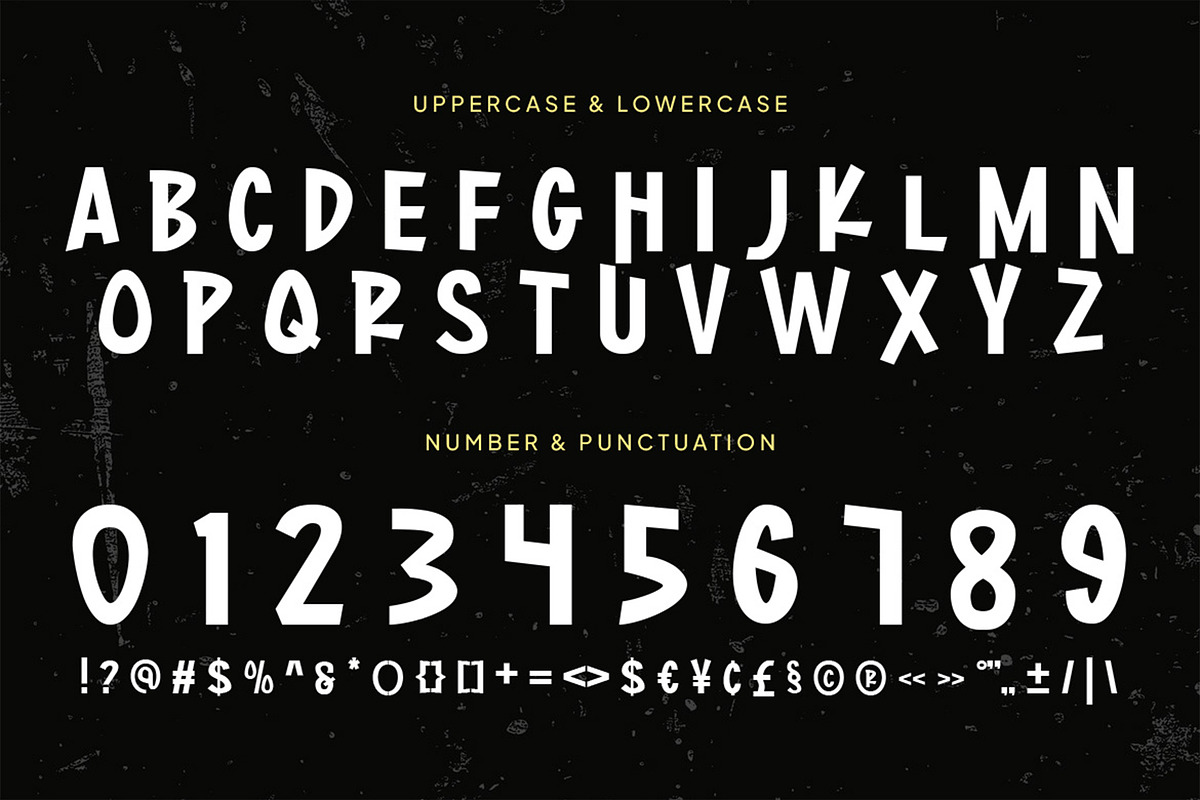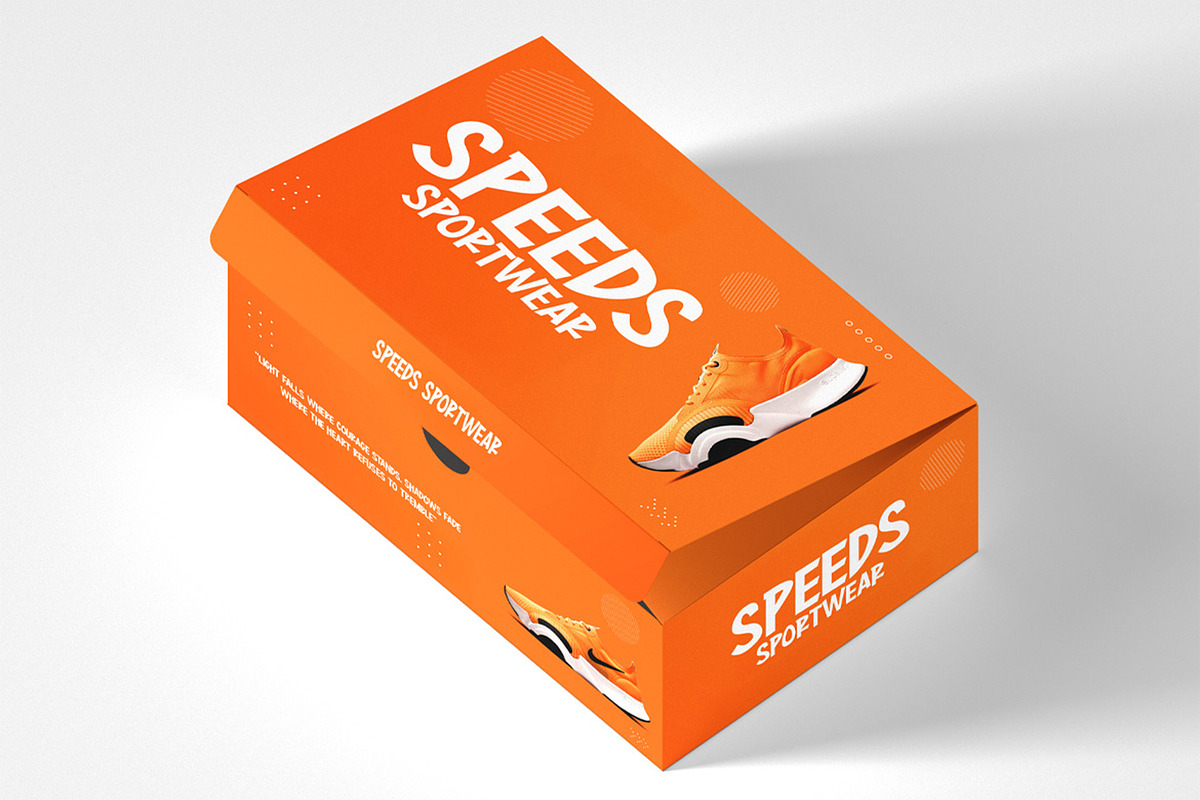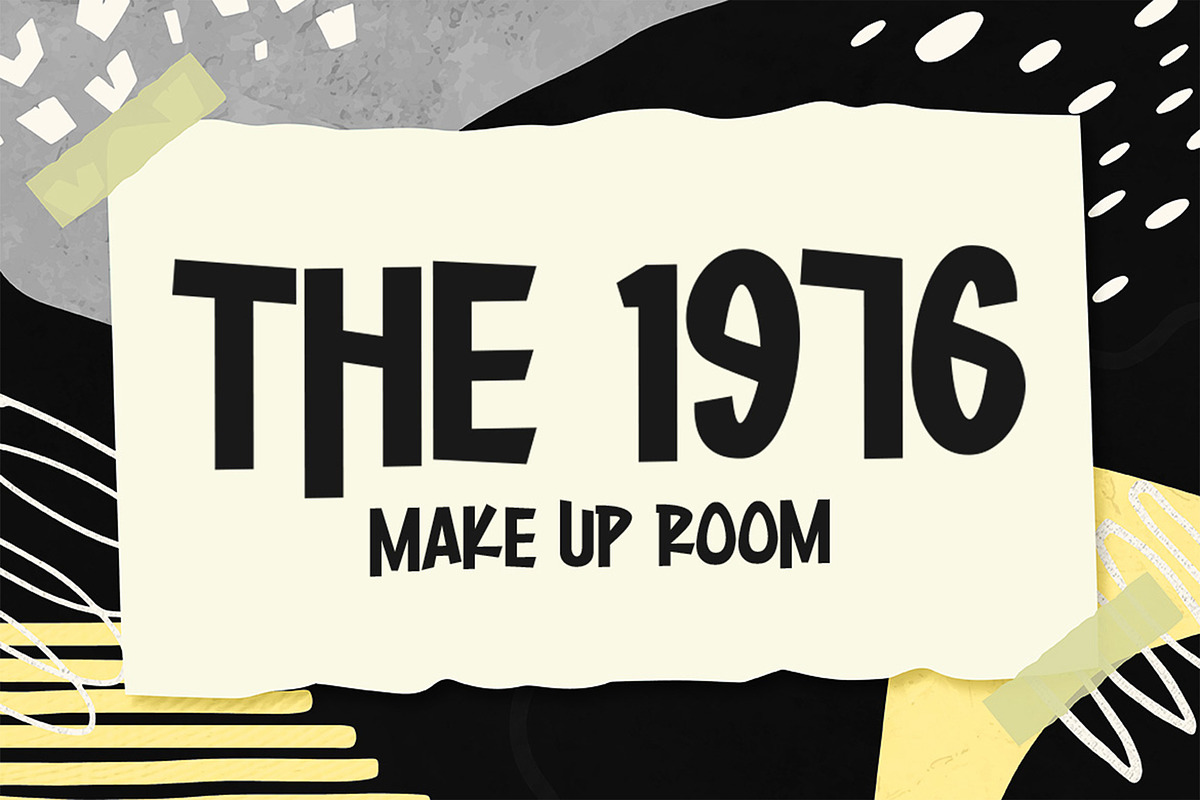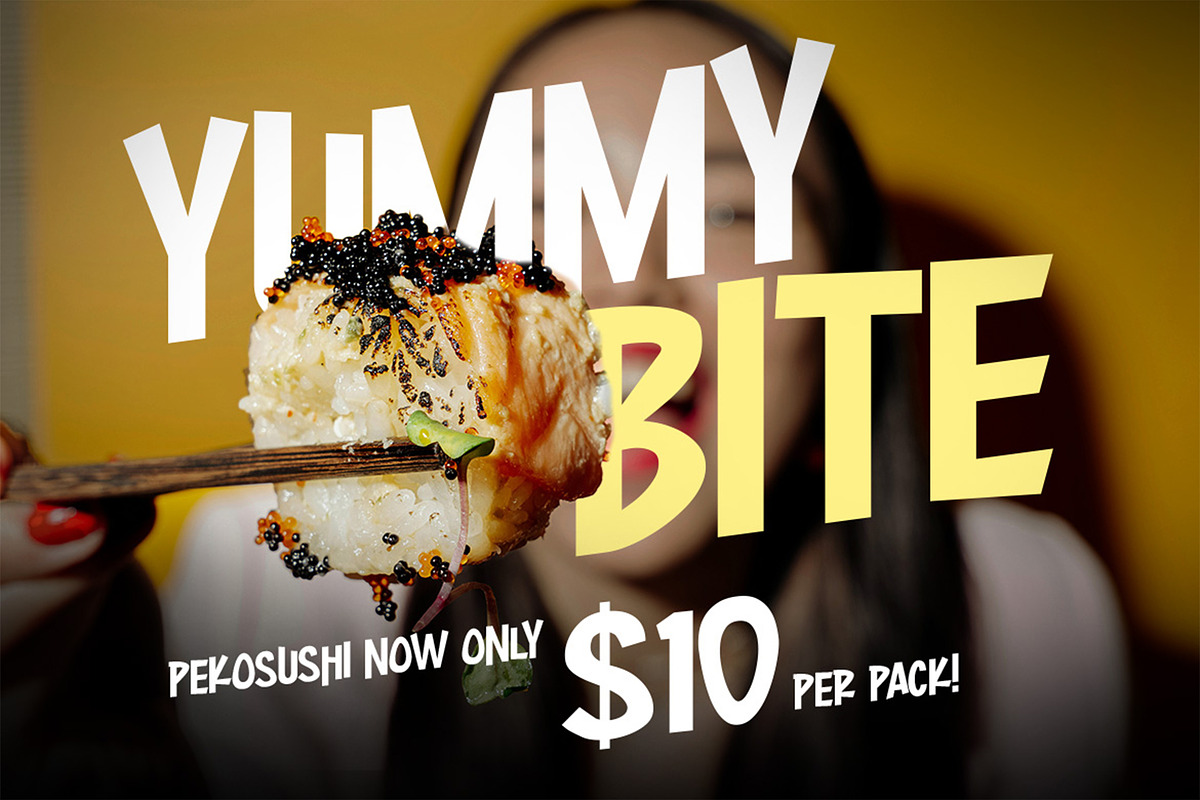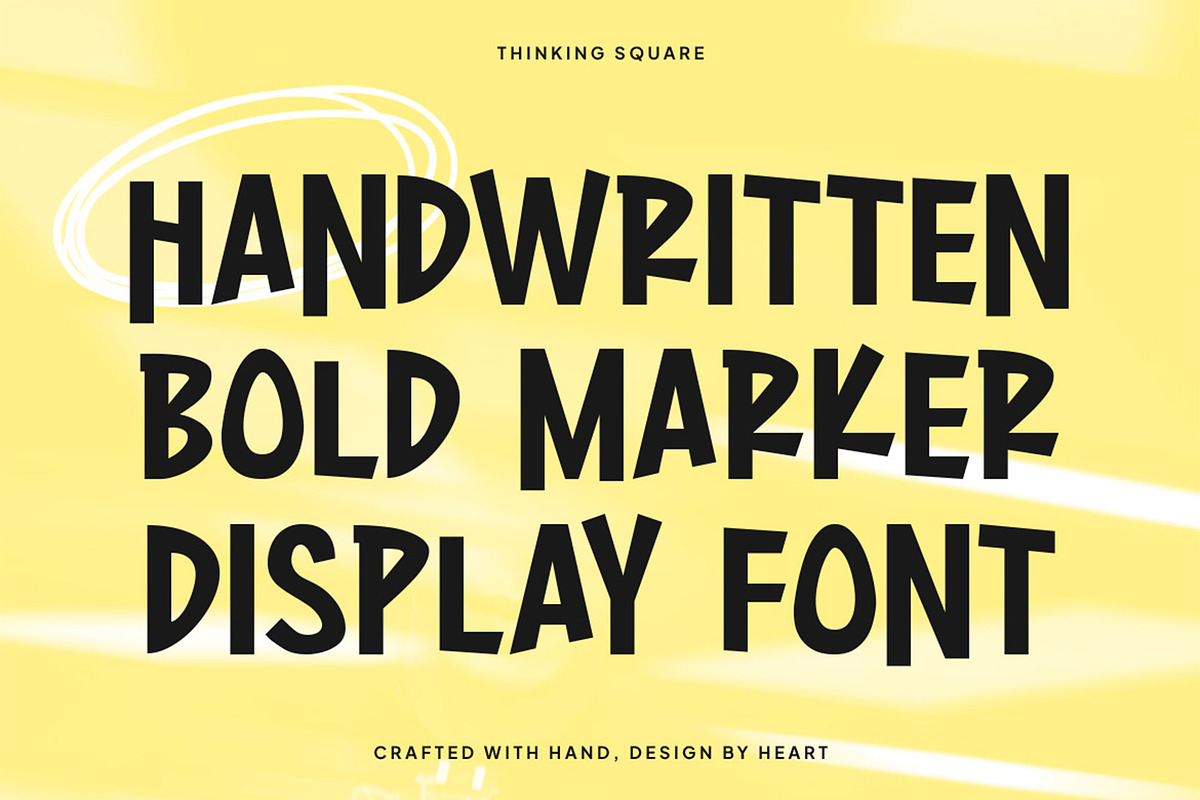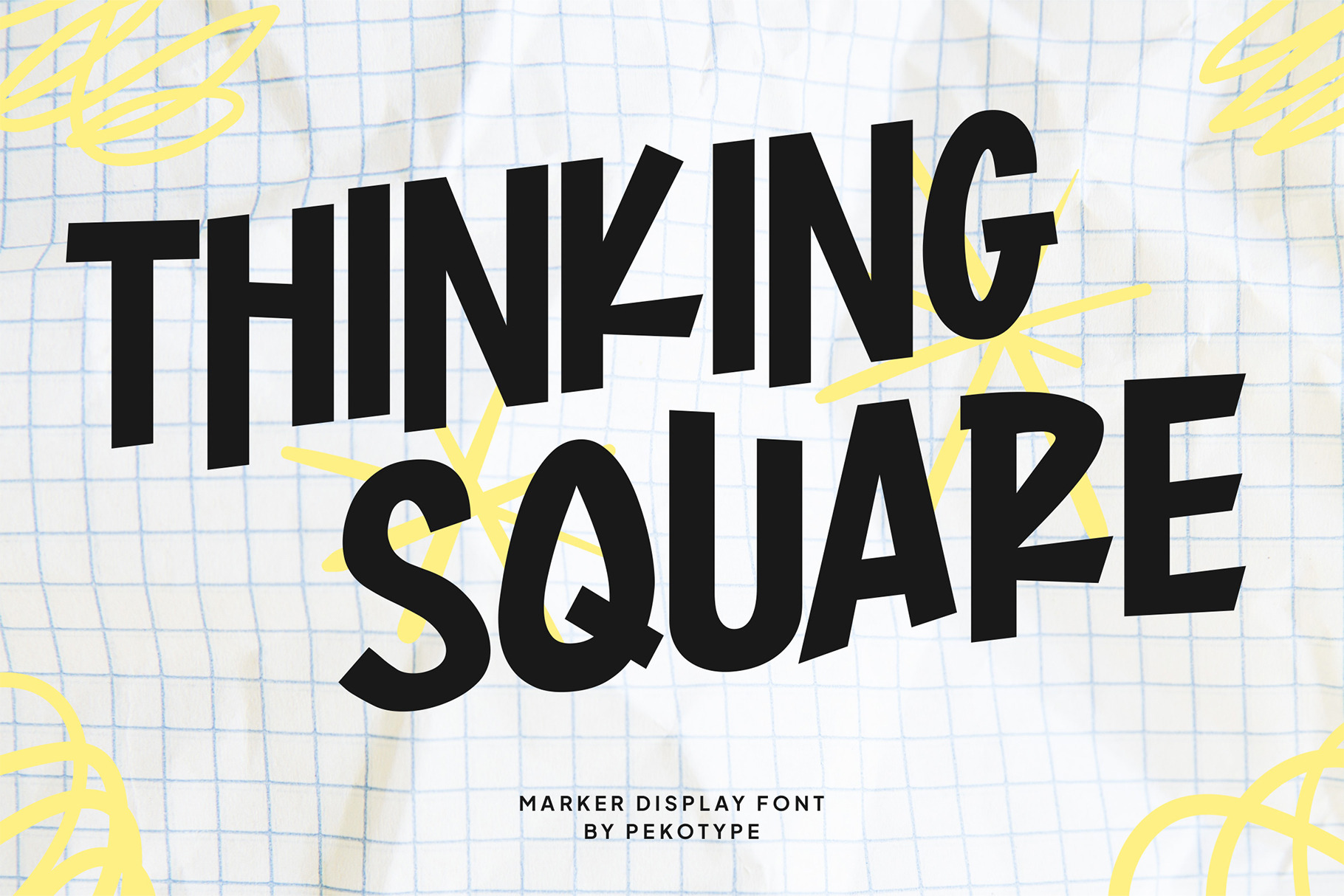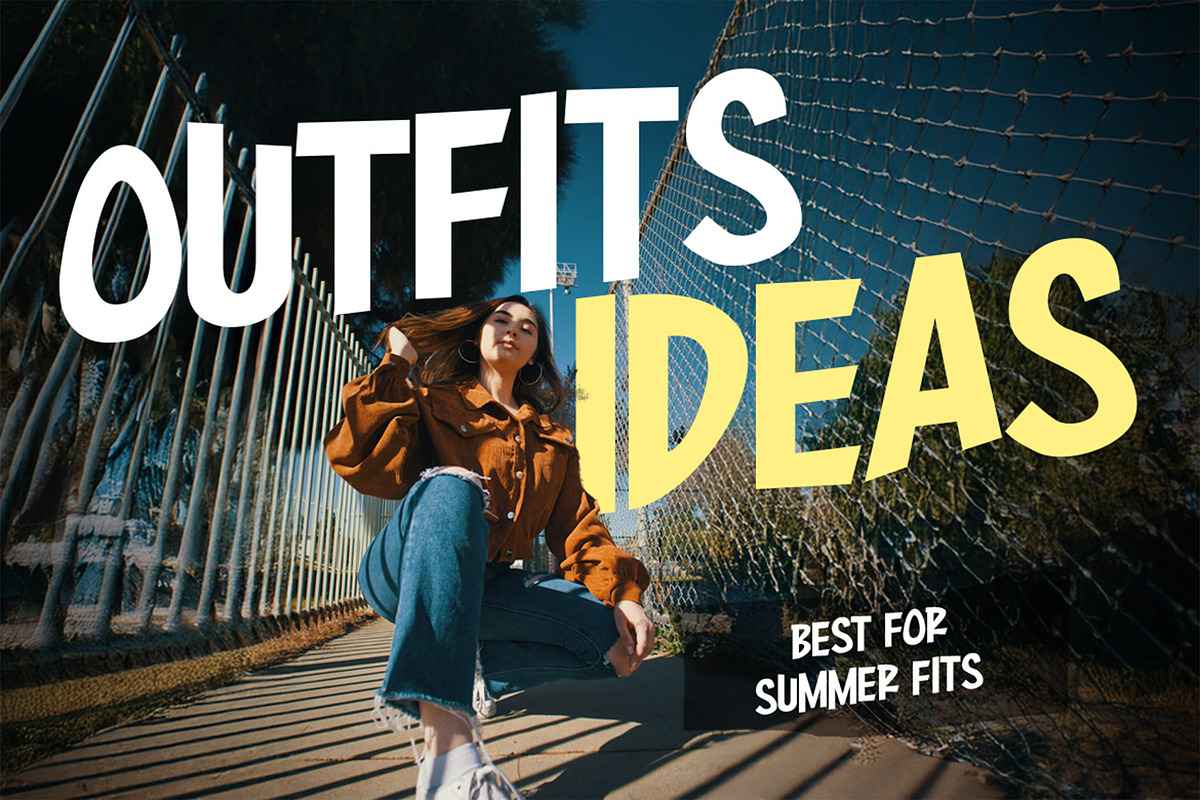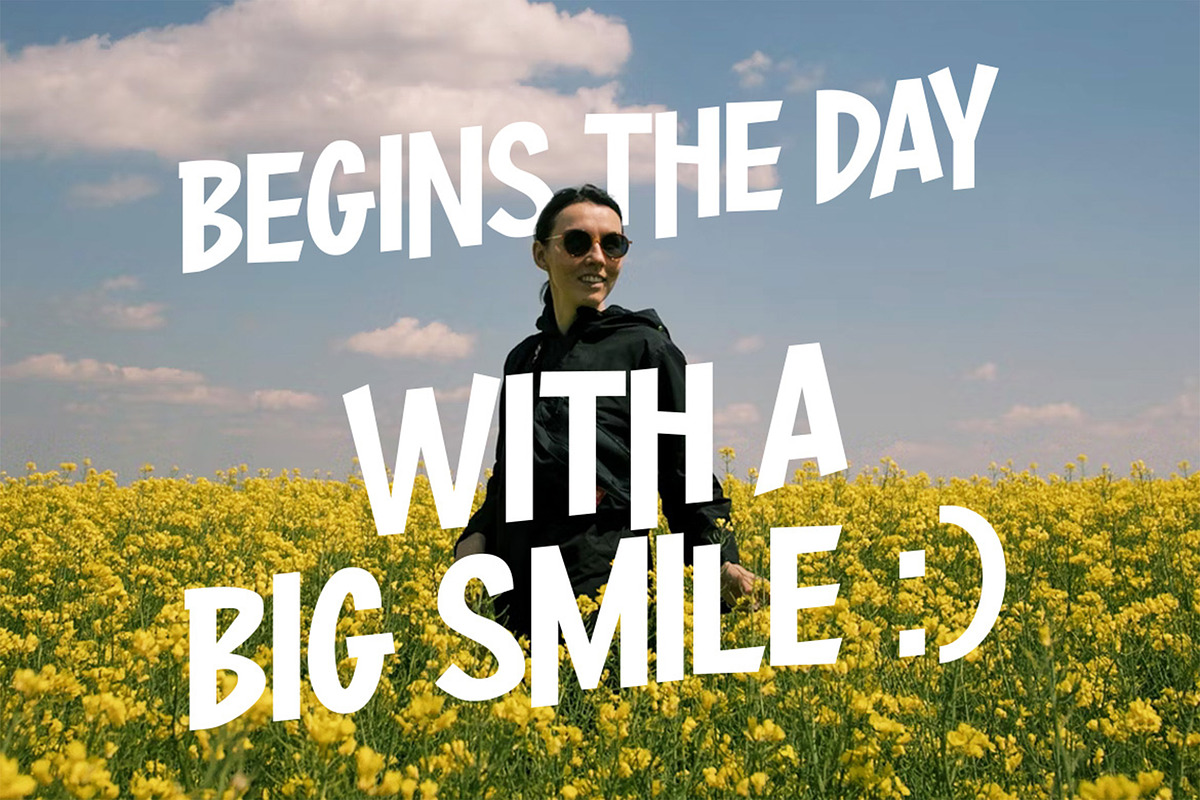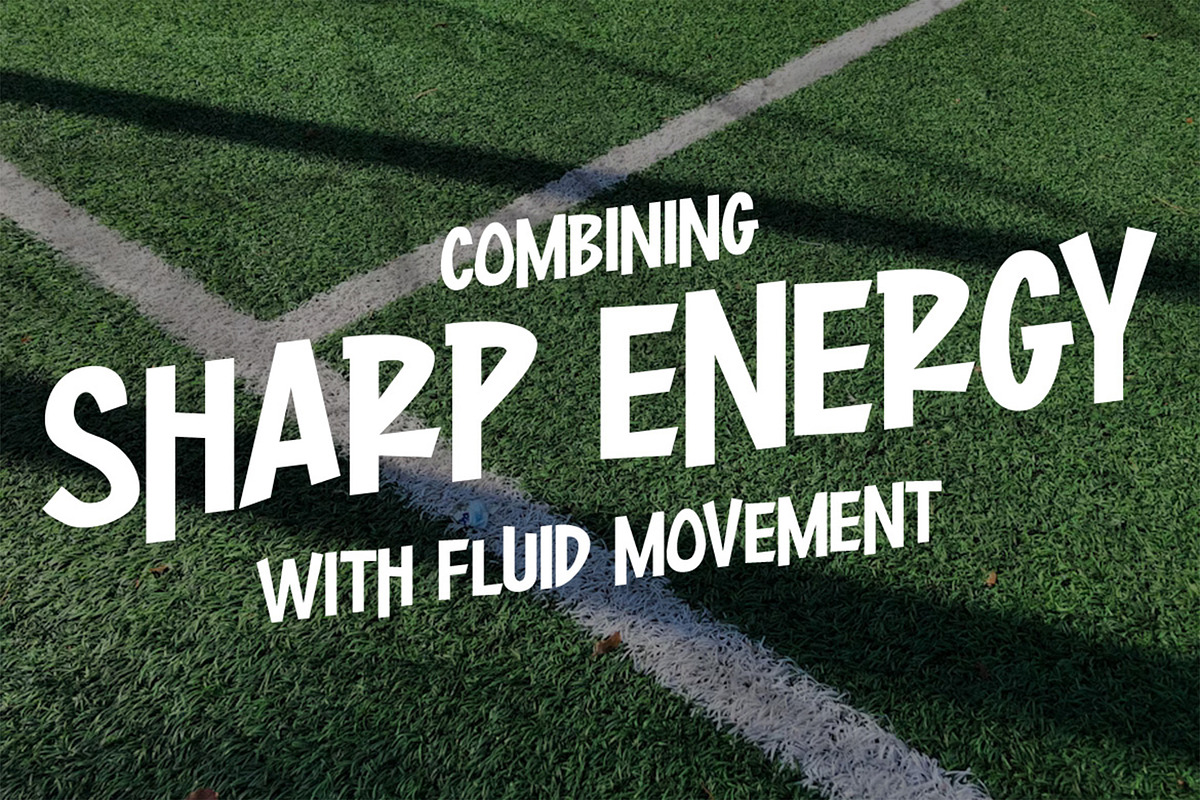
Thinking Square - Marker Font
THINKING SQUARE — A Modern Marker Font
Meet THINKING SQUARE, a bold handwritten marker font designed to spark attention and elevate your design game. With its modern strokes, square edges, and playful energy, THINKING SQUARE brings a fresh, expressive vibe to any visual project. Perfectly imperfect, each letter carries a sense of movement and individuality, making it ideal for branding, bold logos, marketing visuals, social media posts, packaging, and other creative promotions.
- All capital letters
- Number, symbol, & punctuation